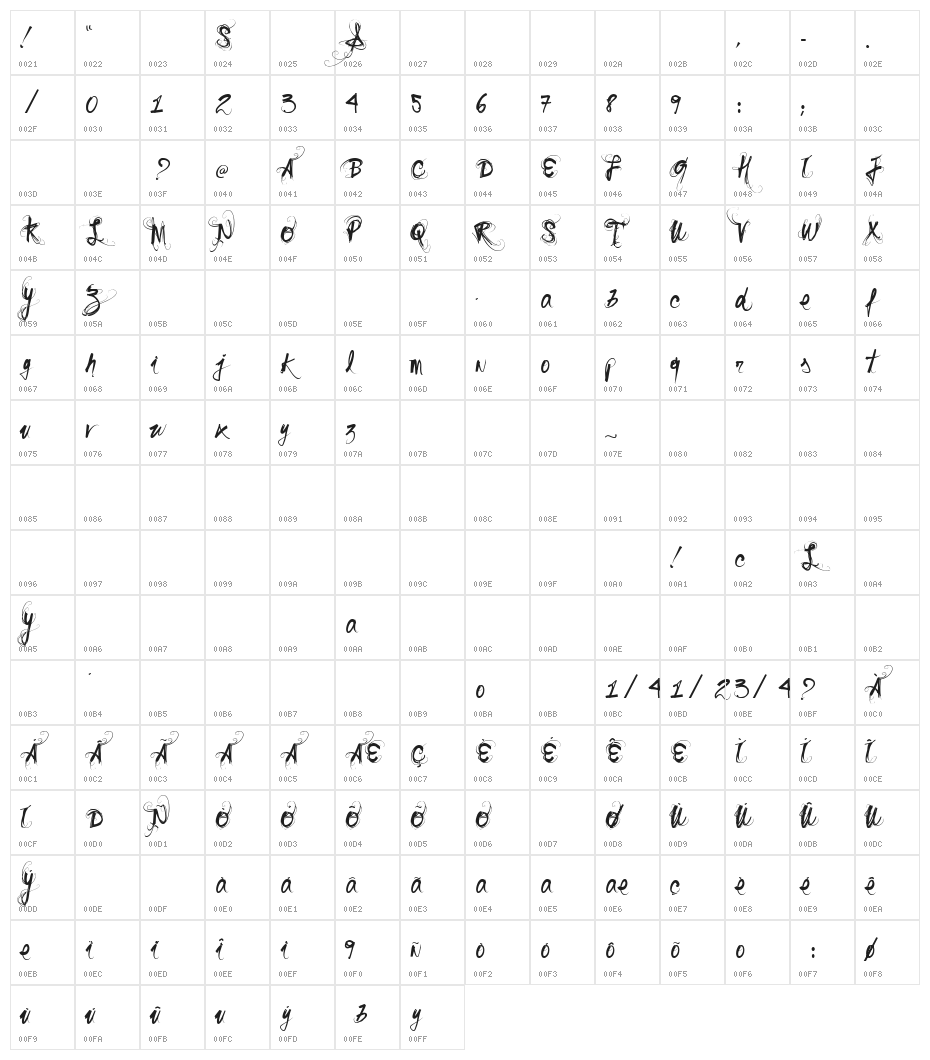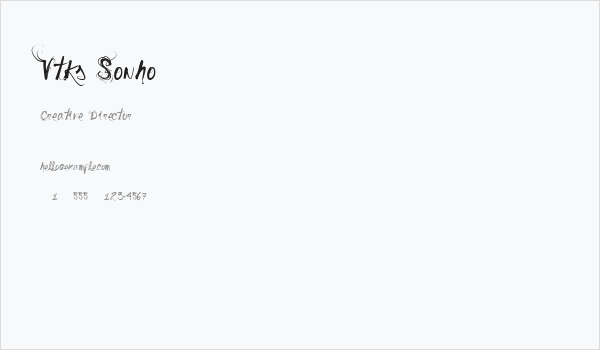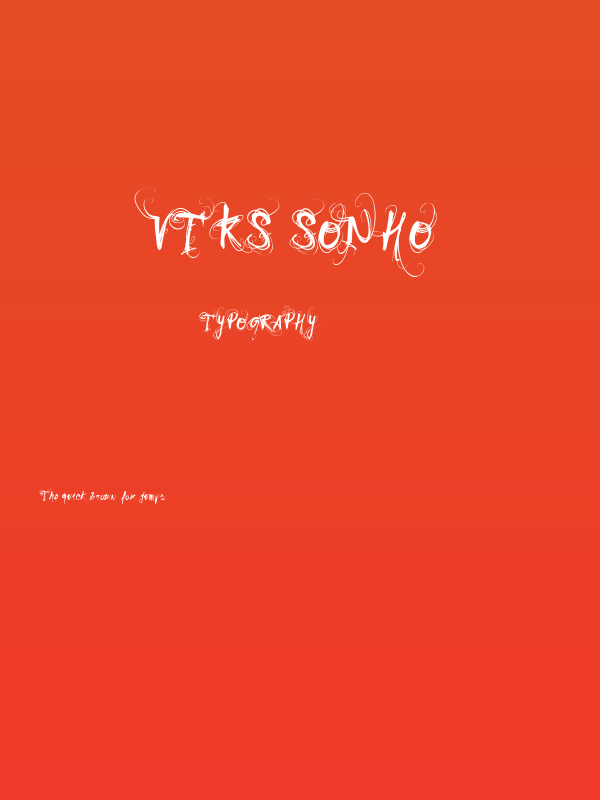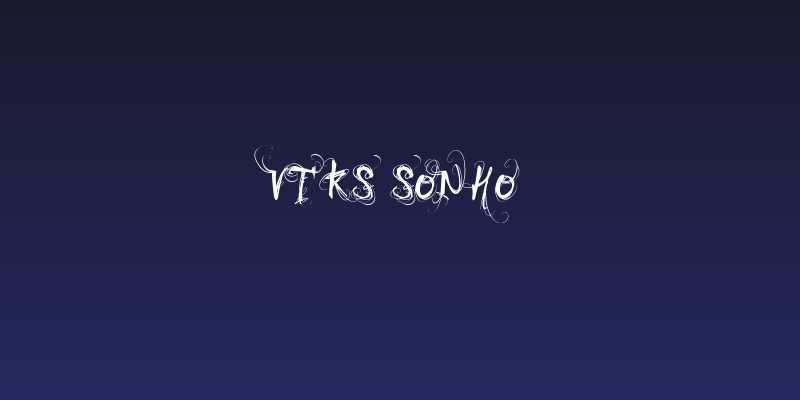
Vtks Sonho Font
Vtks Sonho Description
This font exudes a whimsical and artistic flair, characterized by its elaborate and decorative swirls that extend from the characters. The uppercase letters are particularly ornate, with intricate embellishments that give a sense of movement and fluidity. The lowercase letters maintain a more subdued yet still artistic style, complementing the uppercase with a slightly more restrained design. The numbers and special characters continue this theme, offering a cohesive look across all glyphs. The overall appearance is both playful and sophisticated, making it ideal for projects that require a touch of elegance and creativity.